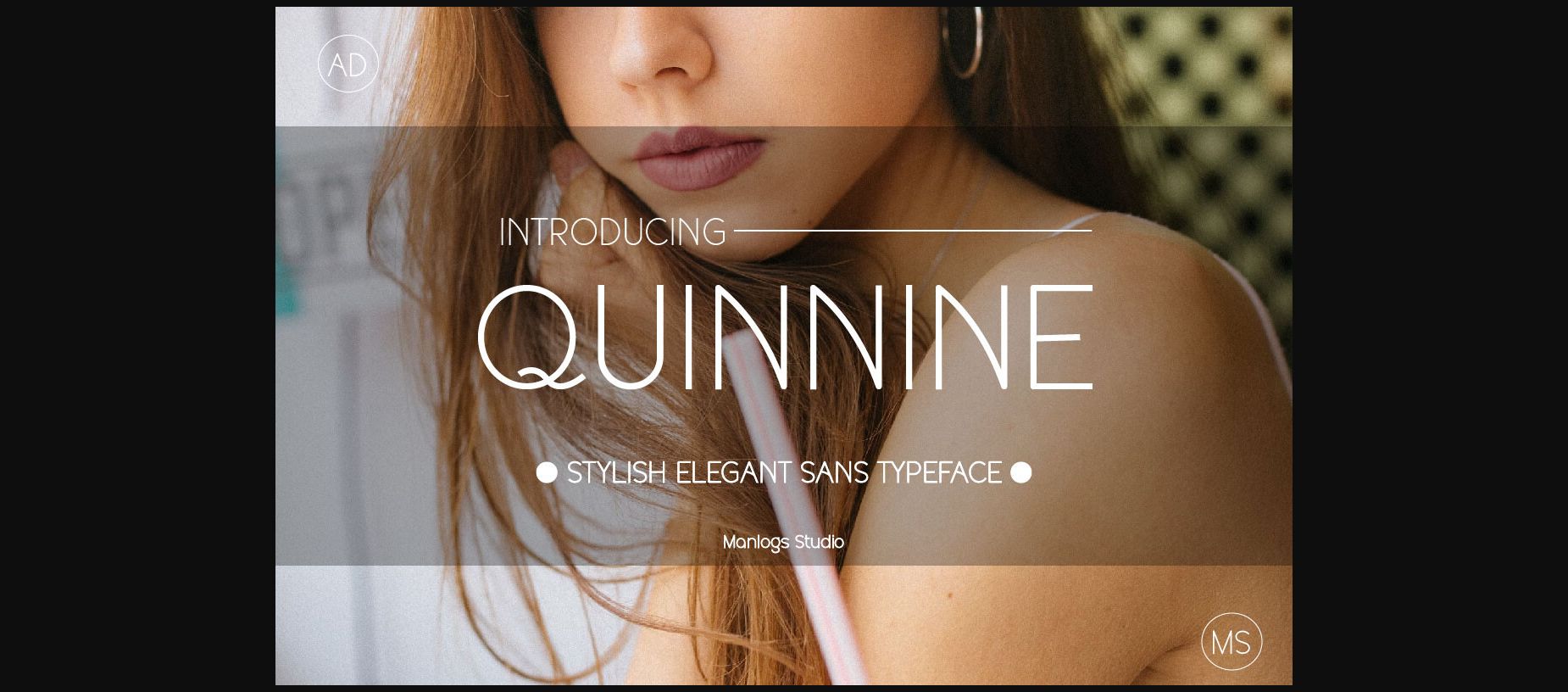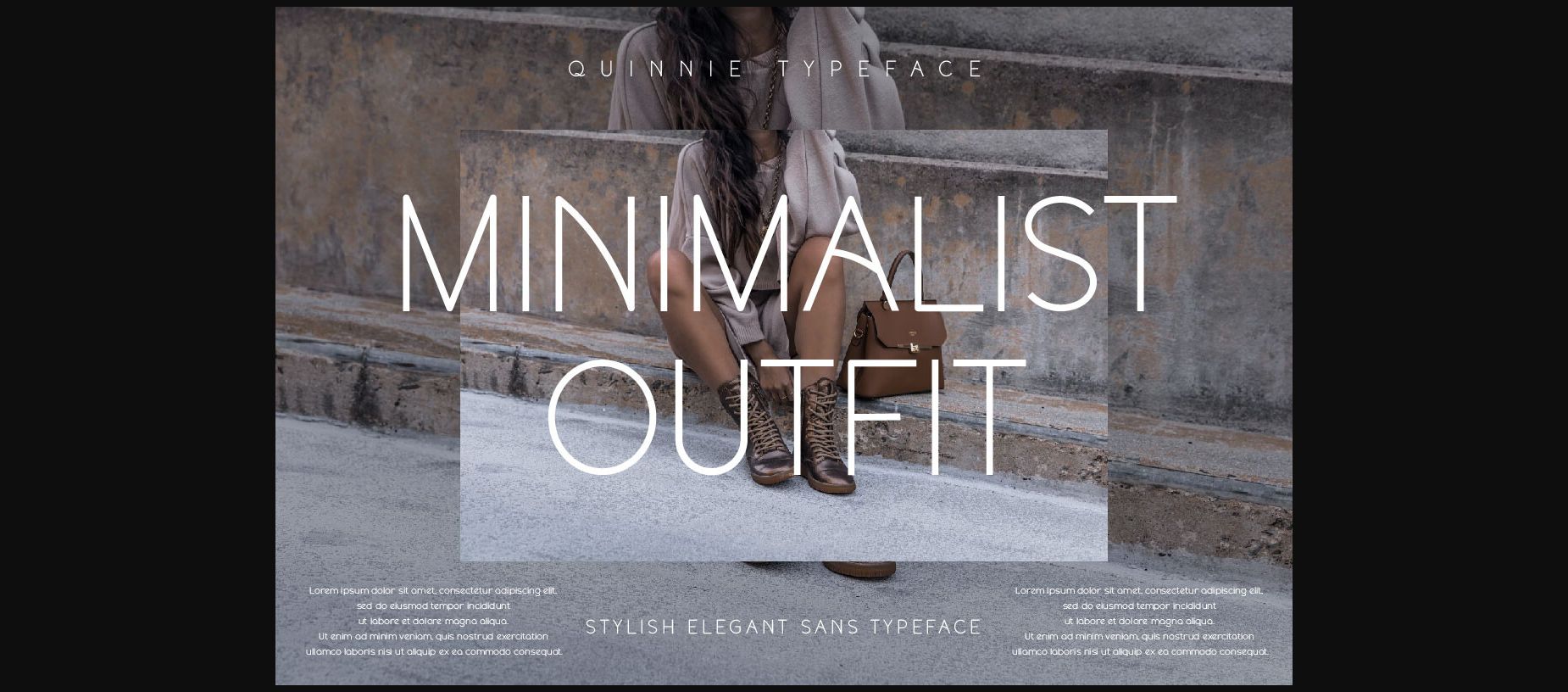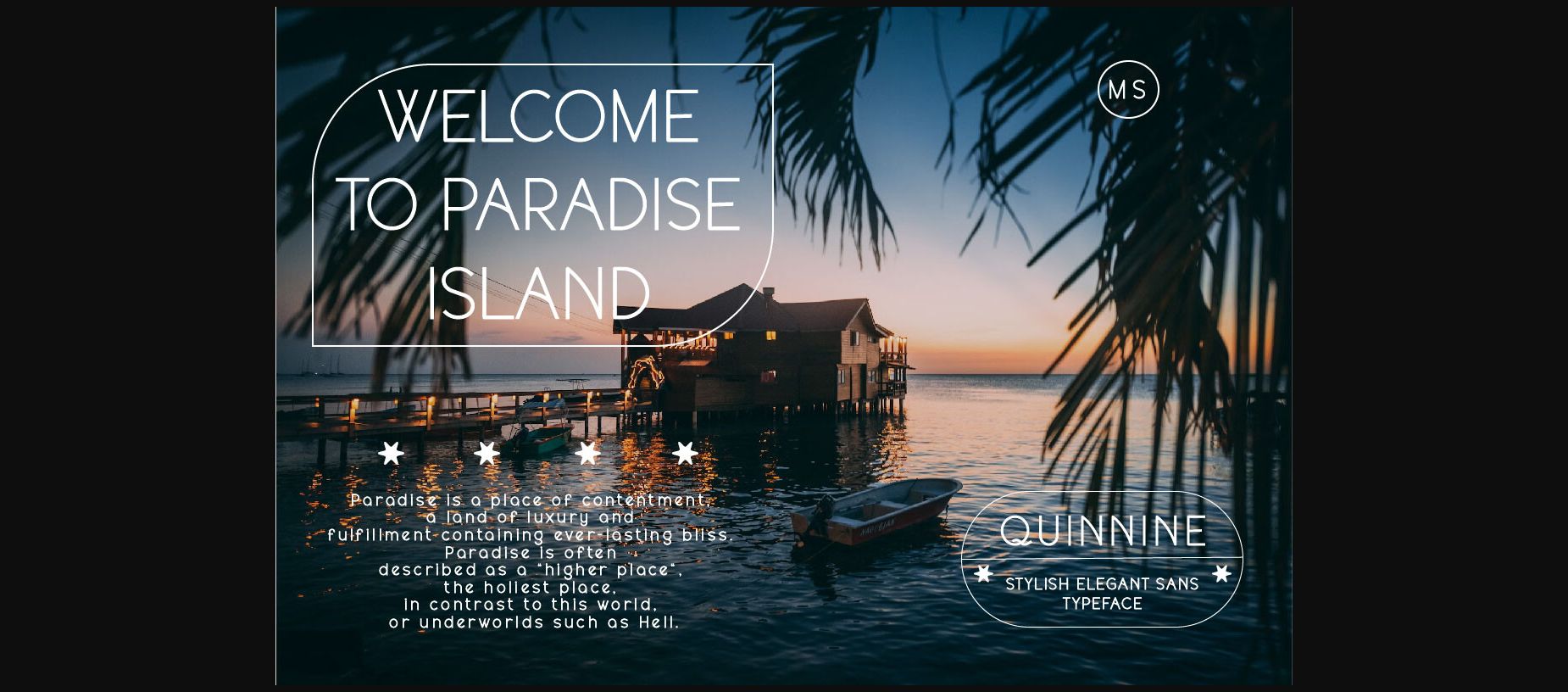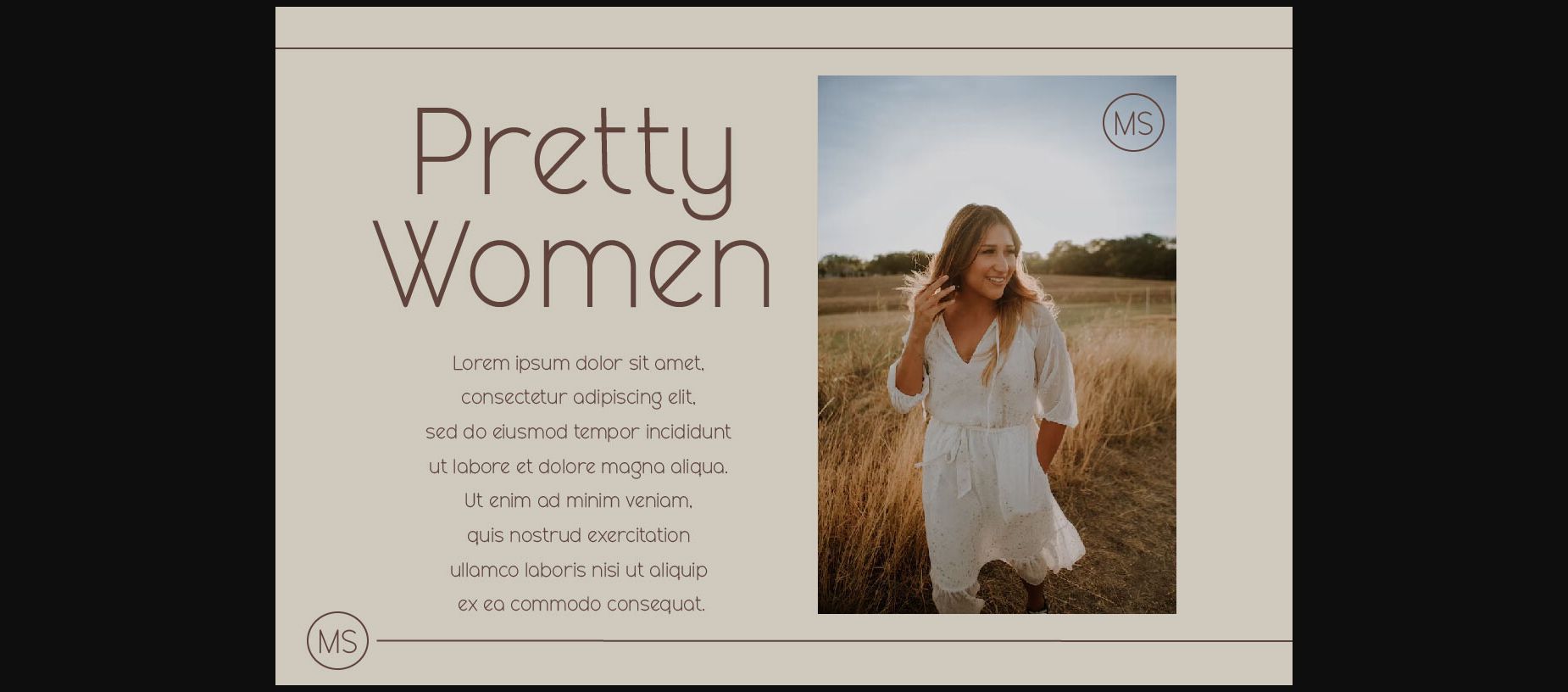
About Quinnie Font
Introducing “QUINNIE” is a fancy and elegant serif font with smooth, curvaceous lines. Its flowing shape and wide letter spacing create a feeling of airy openness, making it perfect for titles, logos and invitations. The font exudes a sophisticated yet approachable vibe, ideal for any project that needs a touch of refinement.